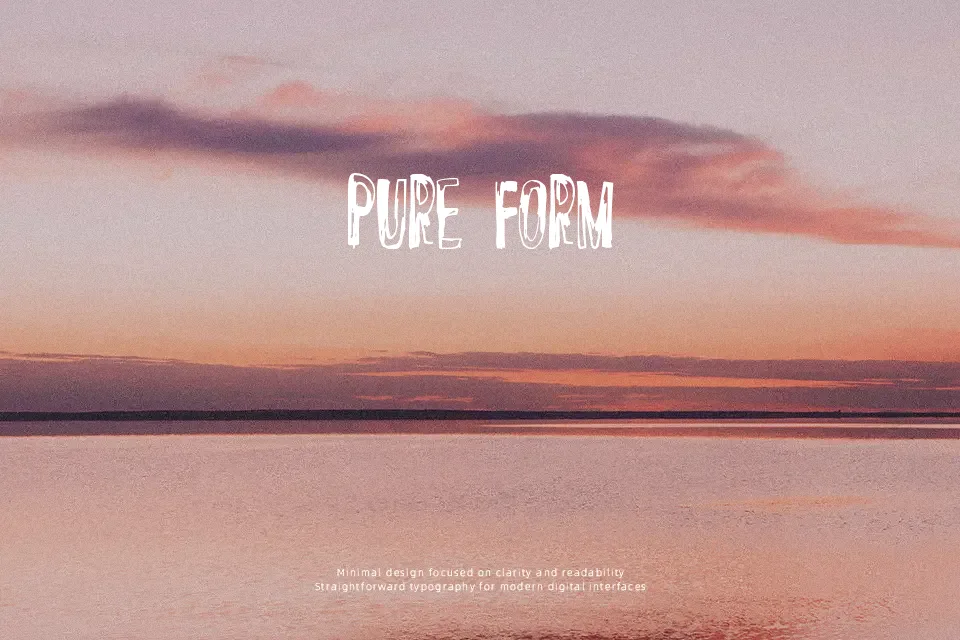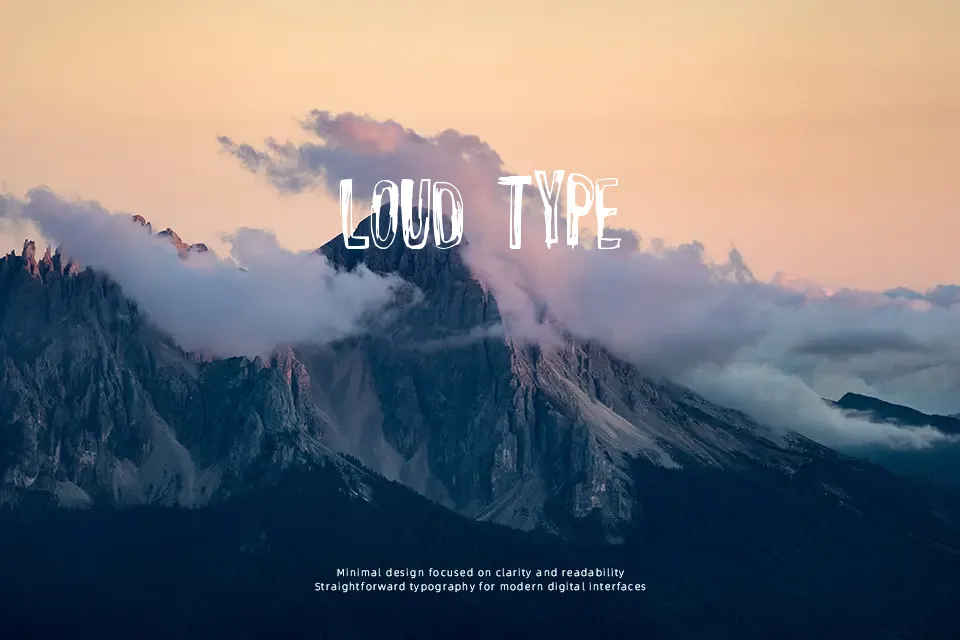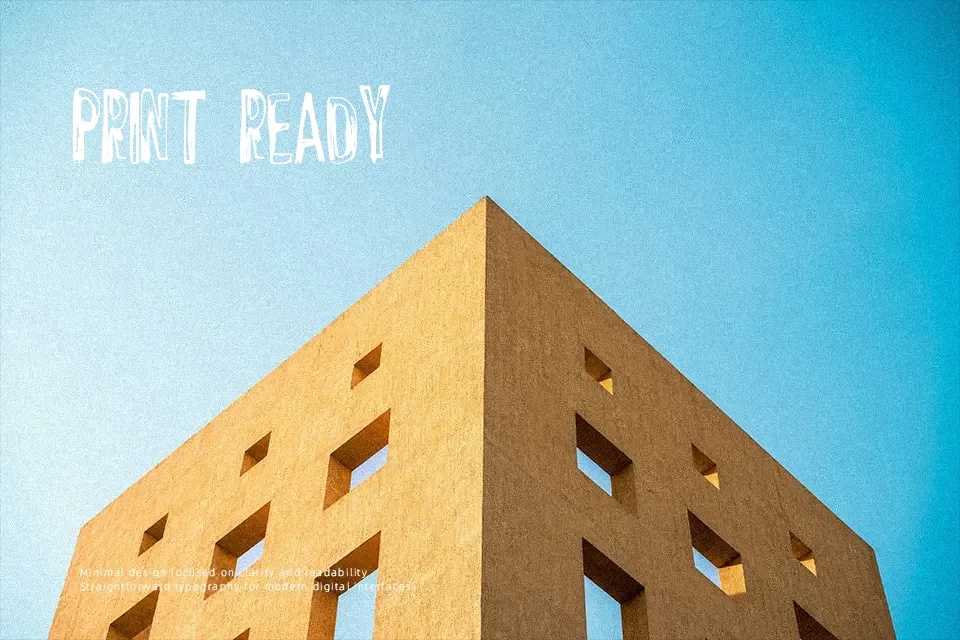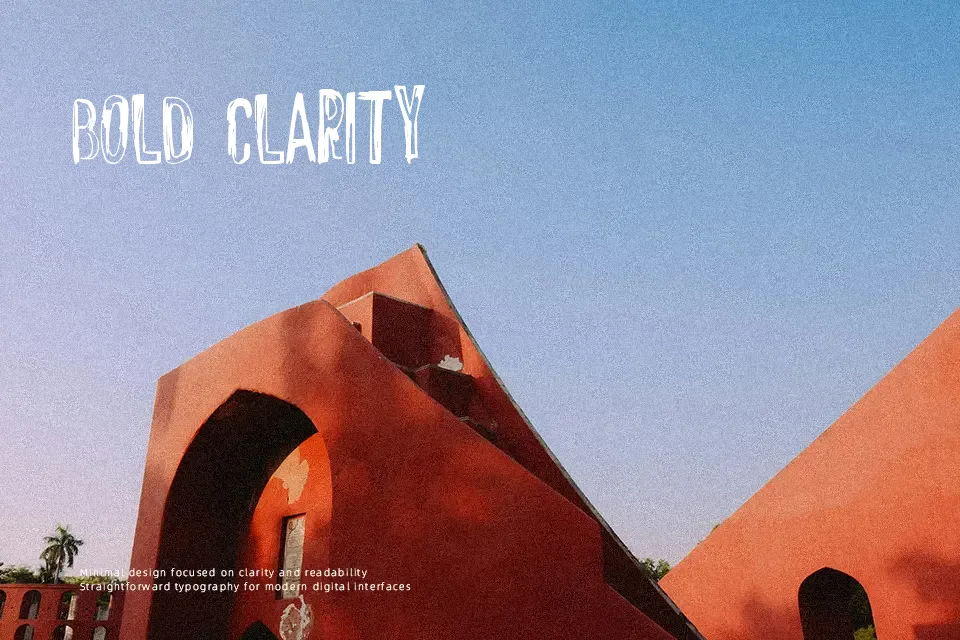
Chrome Fancy Font
Chrome Fancy Font presents a rugged display structure characterized by broken stroke contours, textured fills, and dense character proportions. The letterforms feature thick vertical stems paired with irregular, eroded cutouts that generate high visual friction. Spacing is tightly calibrated to keep word blocks compact and impactful when rendered at substantial scale. While the weathered silhouette commands attention in bold merchandise graphics and festival flyers, the heavy degradation substantially impairs legibility in dense paragraph settings or small captions. The abrasive styling provides an immediate underground tone, though the intricate distress patterns fill in and lose clarity when scaled down.
underground music festival posters, streetwear apparel graphics, horror video game titles, heavy metal album covers
continuous editorial body text, mobile interface labels, dense legal documents, small tabular data
Perfect for advertising, headline, and music, with a bold and decorative style.